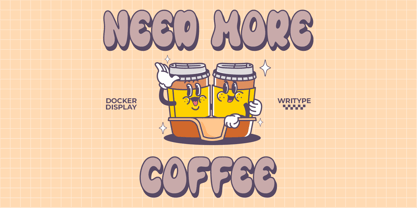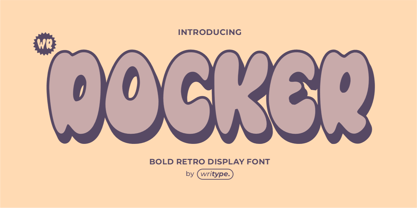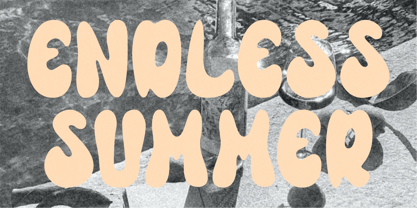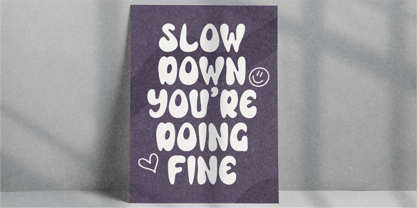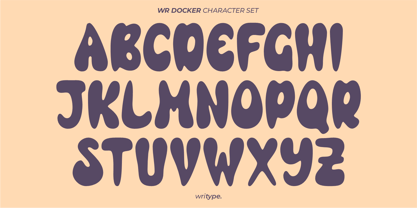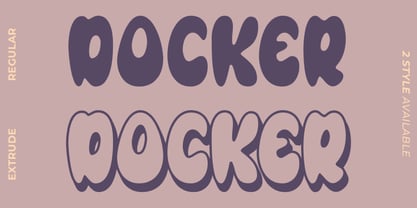
WR Docker
by WriType
The WR Docker Font Family was designed by Wira Pras and published by WriType. WR Docker contains 2 styles and family package options.
WR Docker is a chubby hand-drawn font with a fun and bold personality, available in Regular & Extrude styles. Perfect for branding, logos, and posters, it adds a playful yet strong touch to any design. Stand out with its lively and dynamic look!